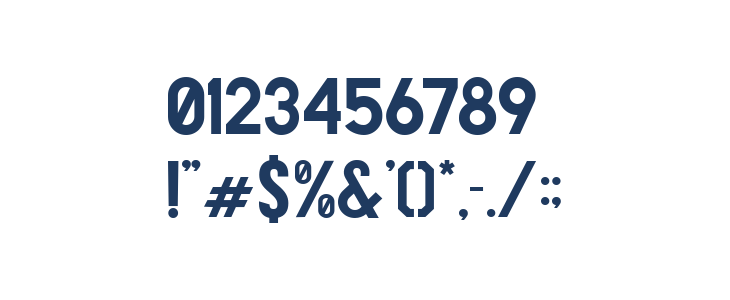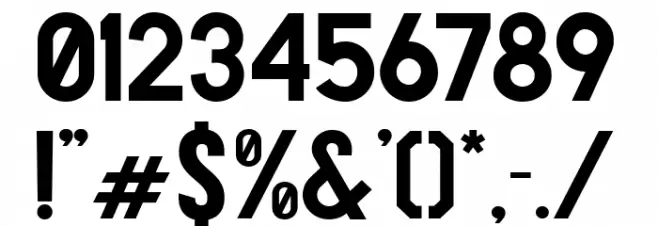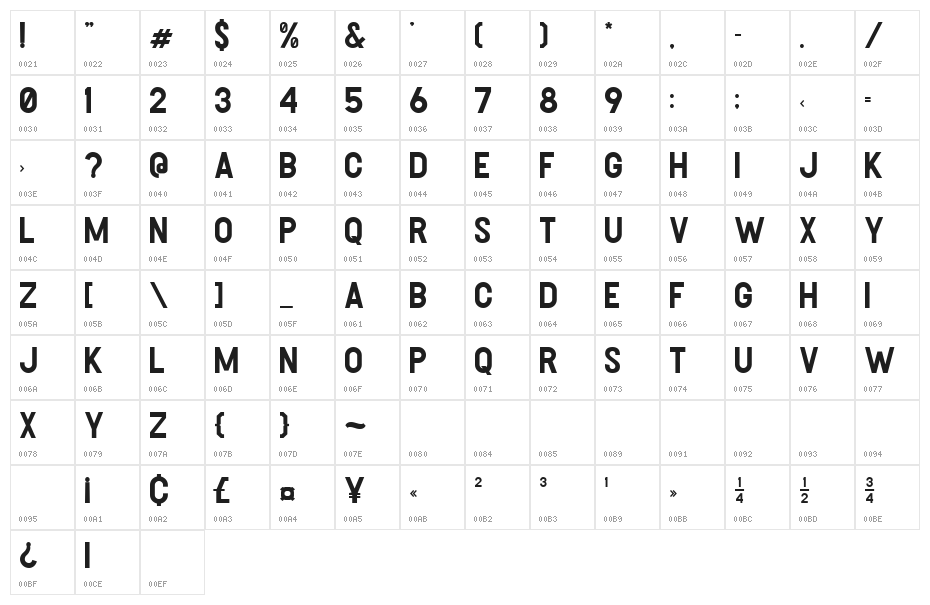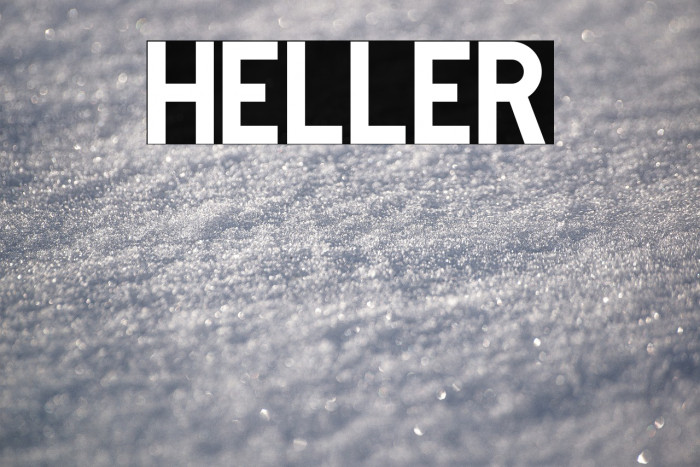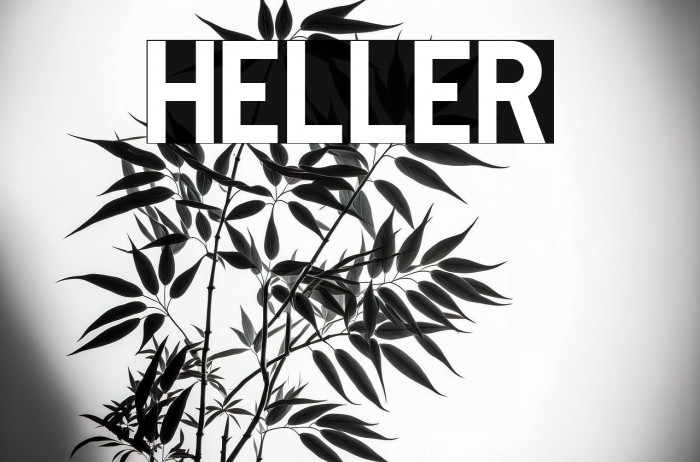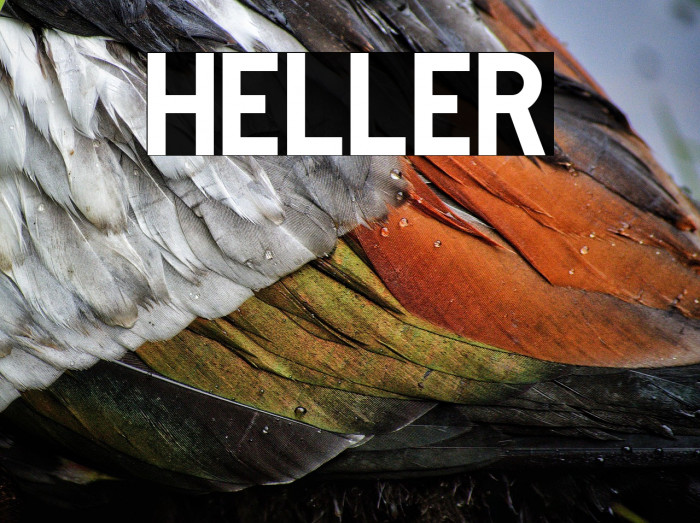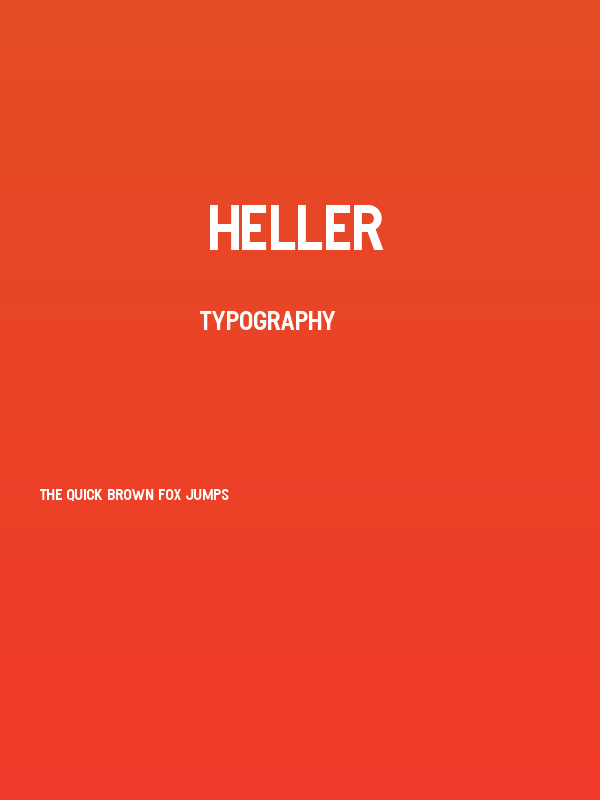
Heller Font
Heller Description
This font features a bold and assertive design with clean, straight lines and uniform stroke widths, making it highly legible and impactful. The characters are well-proportioned, with a modern and geometric aesthetic that conveys a sense of strength and stability. The uppercase letters are particularly striking, with their strong vertical and horizontal lines, while the lowercase letters maintain a consistent style that complements the uppercase set. The numerals are clear and easy to read, matching the overall boldness of the font. Special characters are included, maintaining the same robust style, making this font versatile for various applications.
| Use Case | Headlines, Logos, Signage |
| Proposed Projects | Ideal for branding, advertising, headlines, and signage where a strong, modern presence is needed. |